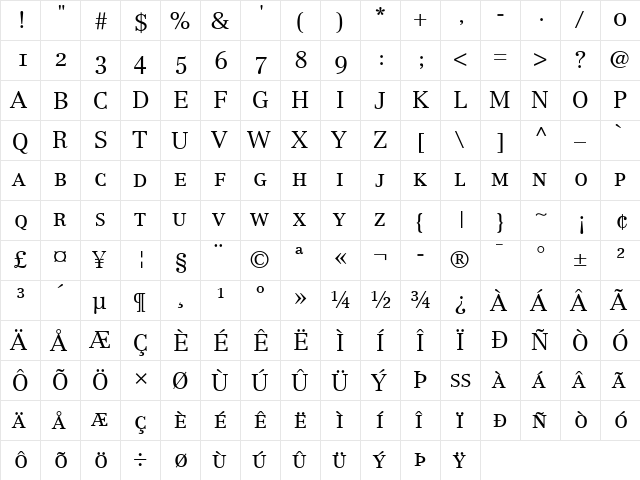
Centennial LightSC Regular Font Preview
Centennial LightSC Regular
Design Context for Centennial LightSC Typeface
Centennial LightSC offers clean, dependable letterforms without strong stylistic allegiance, making it a practical choice for designers who need flexibility. The delicate stroke weight brings airiness and refinement to layouts.
Pro Tip: Use Centennial LightSC in both headline and body roles to test its range before committing to a single application.